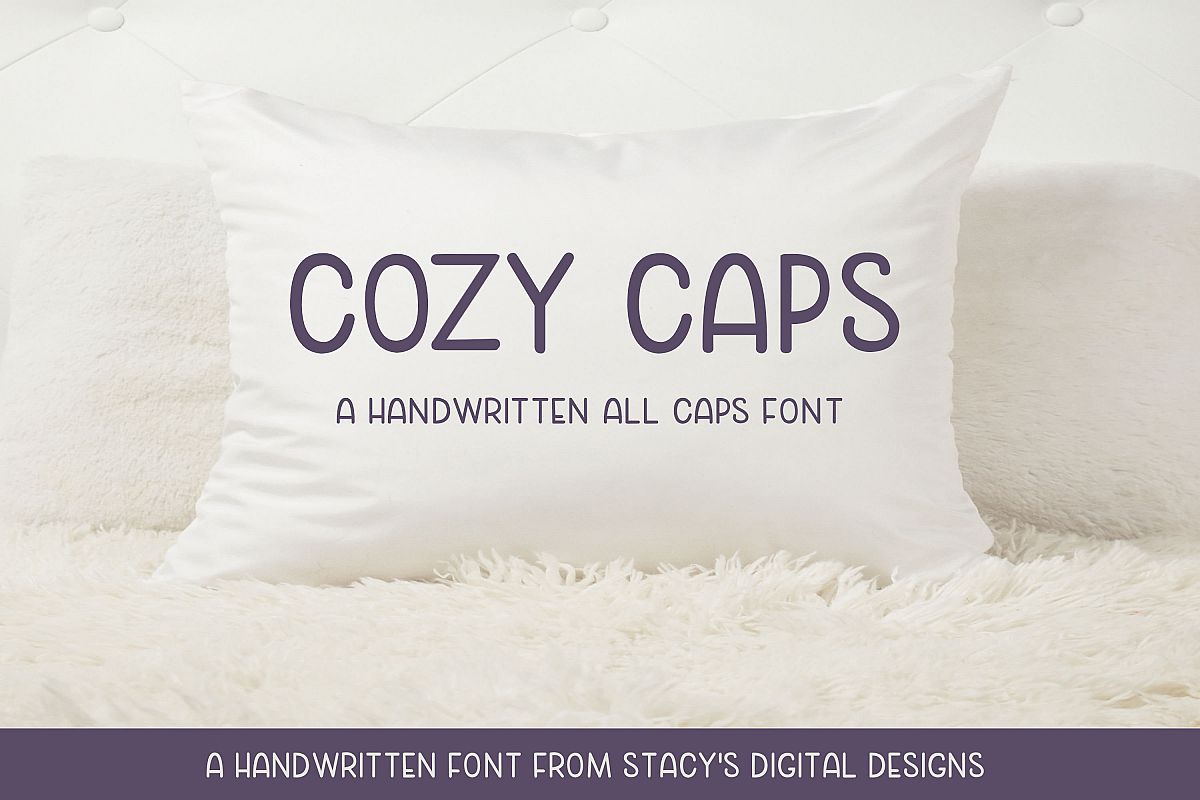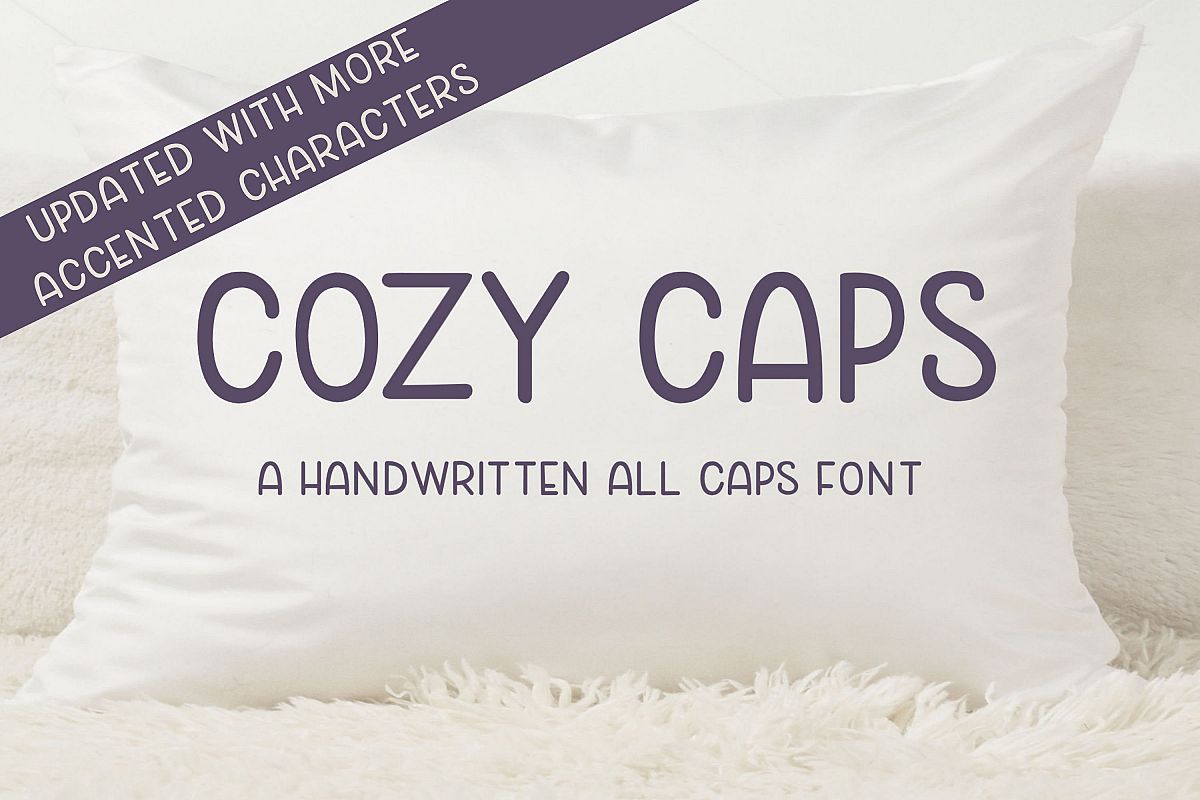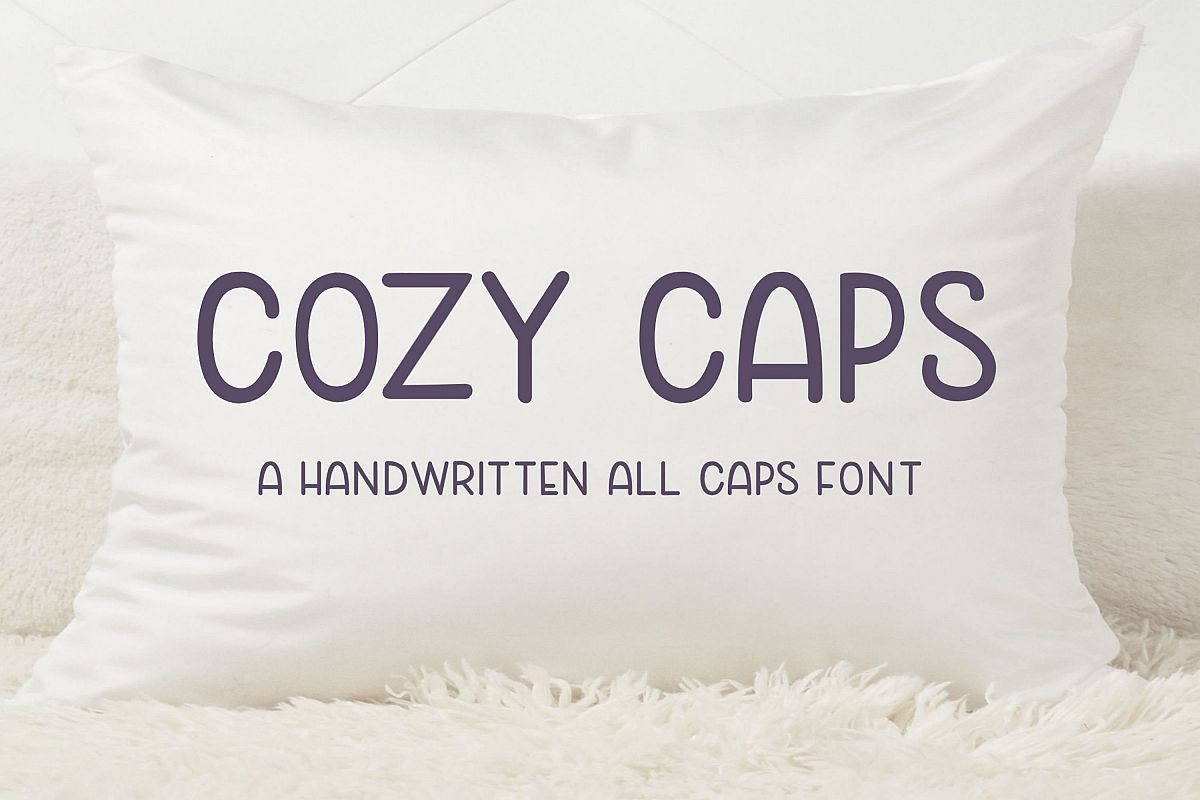
Cozy Caps is a handwritten, print font made up of capital letters A-Z, numbers 0-9, punctuation, and some accented characters. Cozy Caps is great for cards,
invitations, scrapbooking, SVG design, and more!